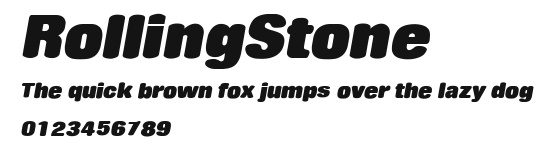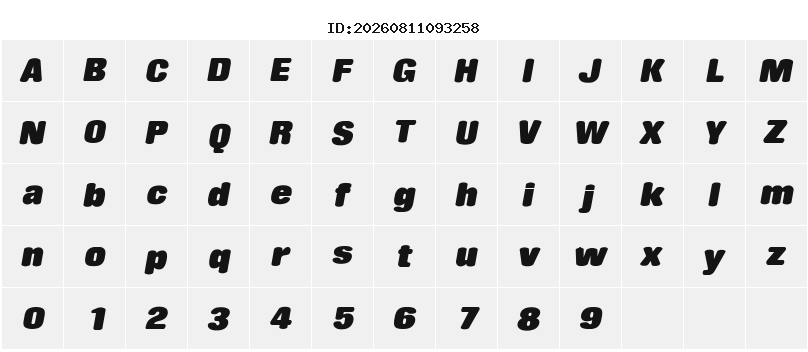
• Font Name: RollingStone
• Font ID: SoftMaker: RollingStone Italic: 1993
• Full Font Name: RollingStone Italic
About RollingStone.ttf
RollingStone.ttf is a modern, elegant sans-serif font designed for ultimate readability and visual harmony. Perfect for branding, headlines, web design, and print materials.